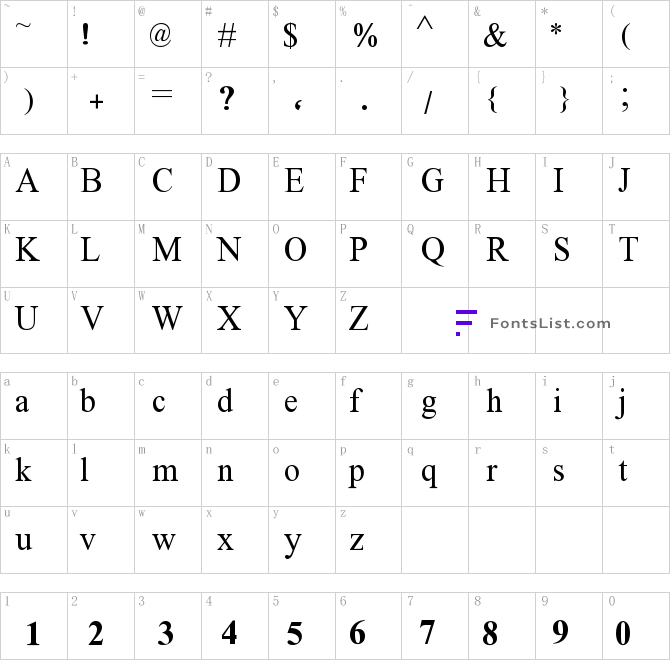
- Font Name:ALKATIP Yazma Tom
ALKATIP-Yazma-Tom.ttf is a very beautiful artistic font, ALKATIP-Yazma-Tom.ttf is widely used in the design and printing of various books and pictures,ALKATIP-Yazma-Tom.ttf has a strong visual impact,ALKATIP-Yazma-Tom.ttf is a commonly used font in newspapers, magazines and books, and is used in posters, e-commerce Poster design, store design, logo design, font design and other fields.ALKATIP-Yazma-Tom.